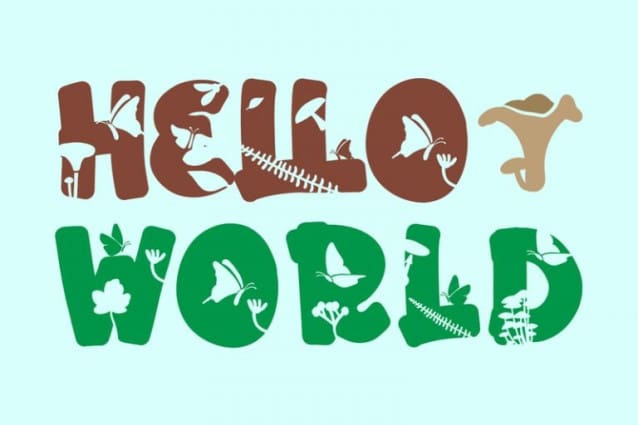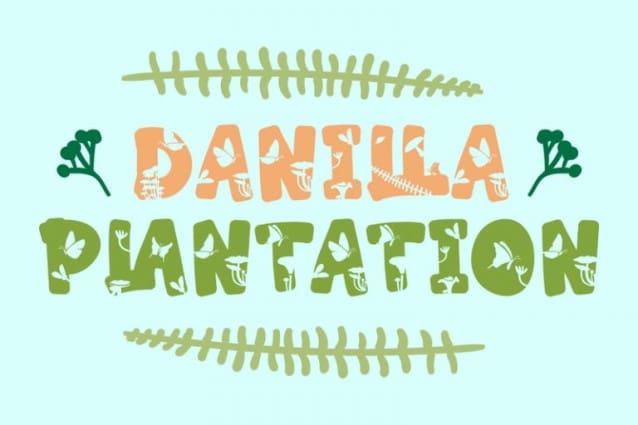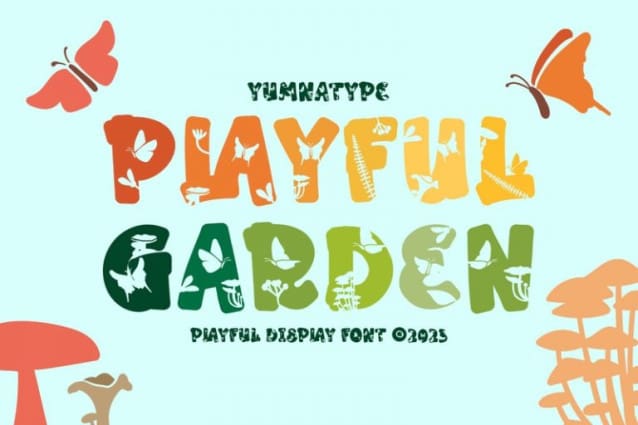
Playful Garden Font
Playful Garden is a display font inspired by garden plants, such as flowers, leaves, and other plants. The letters are round and organic portraying natural shapes of garden views. This font’s unique characteristic is that all of the letters are in capitals to show dramatic, prominent displays. Such big letter sizes help emphasize the messages delivered.
Furthermore, such a garden-themed display font is able to create calm, quiet situations to apply for nature designs or organic and eco-friendly products. Overall, it is the right option for you to show unique, interesting displays. Moreover, Playful Garden provides a clipart in accordance with the font theme as a bonus and features you can enjoy.